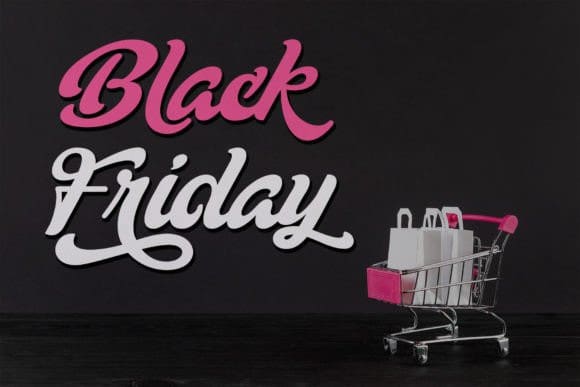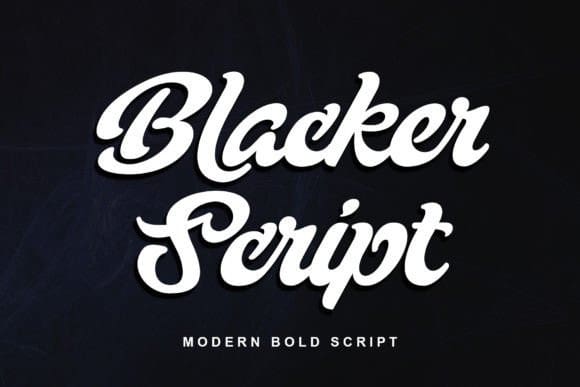
Blacker Script Font
Blacker Script Font is a modern bold script font, carefully handcrafted to become a true favorite. Its casual charm makes it appear wonderfully down-to-earth, readable, and, ultimately, incredibly versatile. This font will look outstanding in any context, whether it’s being used on busy backgrounds or as a standalone headline! This font is PUA encoded which means you can access all of the glyphs and swashes with ease!